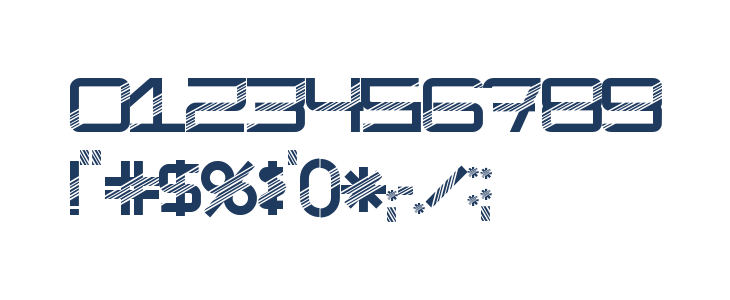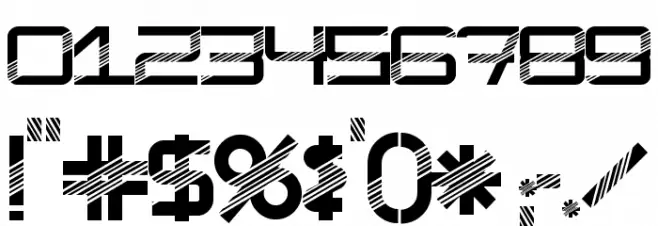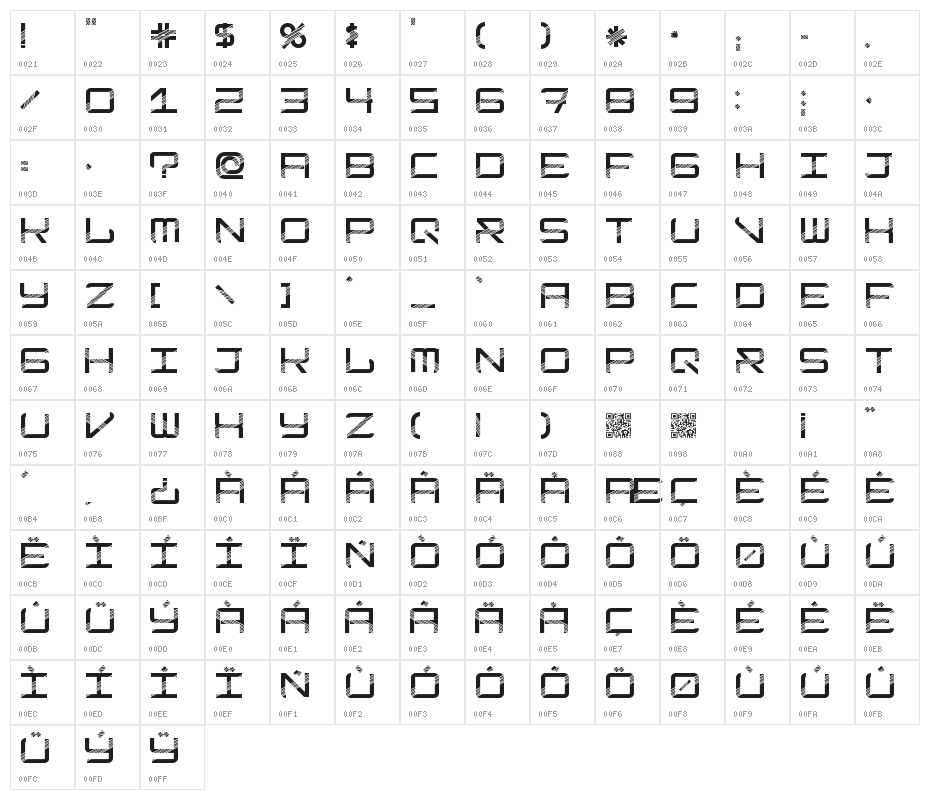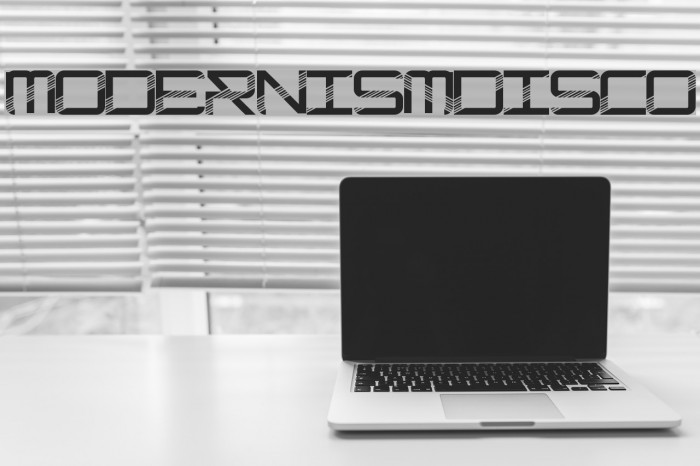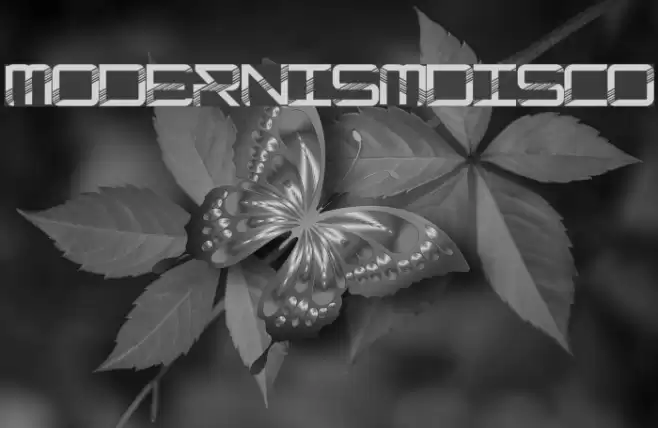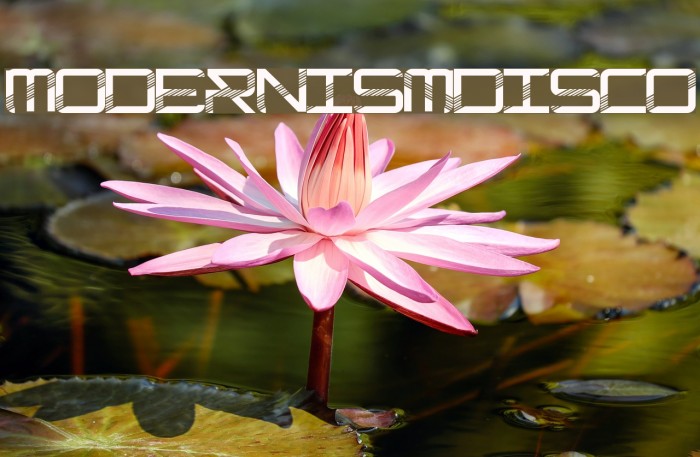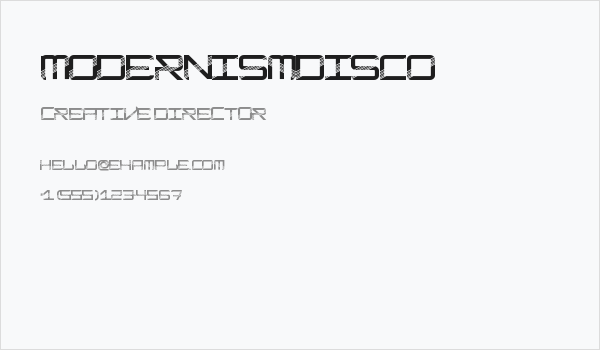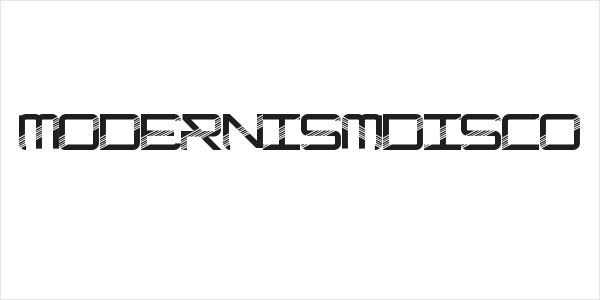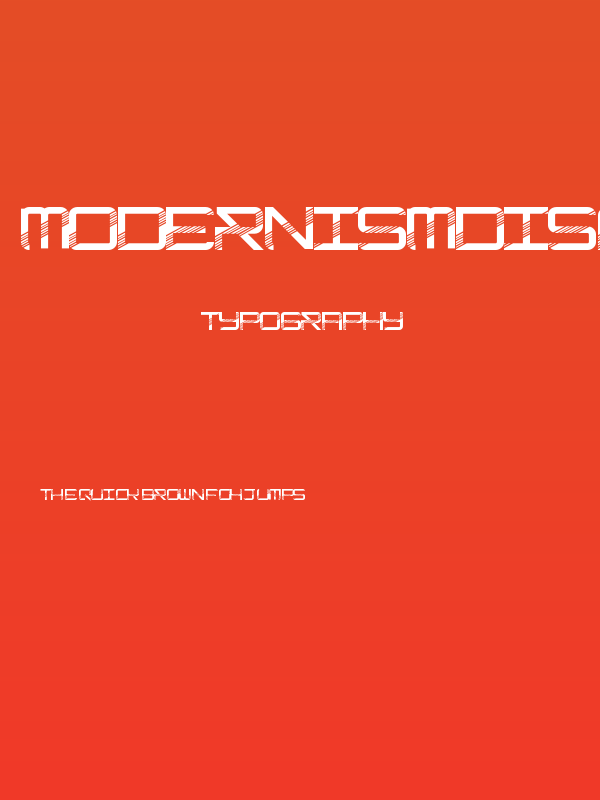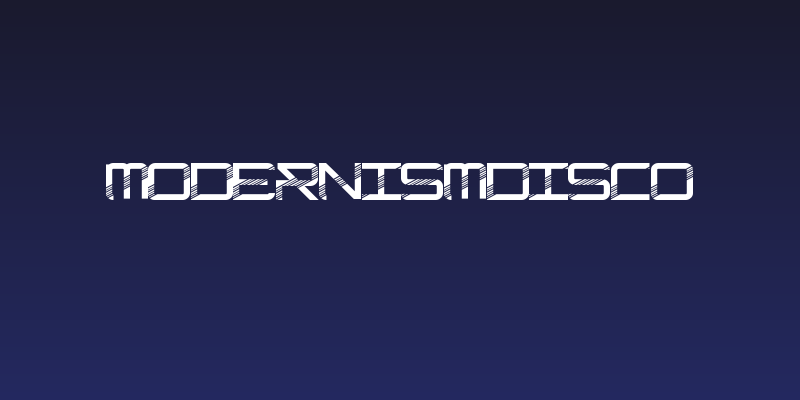
ModernismDisco Font
ModernismDisco Description
This font features a unique and modern design with a distinct disco-inspired aesthetic. The characters are bold and geometric, incorporating diagonal lines that create a sense of movement and rhythm. The uppercase and lowercase letters maintain a consistent style, with sharp angles and a futuristic feel. The numerals and special characters follow the same design principles, making the font cohesive and versatile. Its boldness and distinct style make it ideal for projects that require a standout, eye-catching typeface.
| Proposed Projects | Ideal for music event posters, nightclub branding, futuristic designs, and any project needing a bold, standout typeface. |